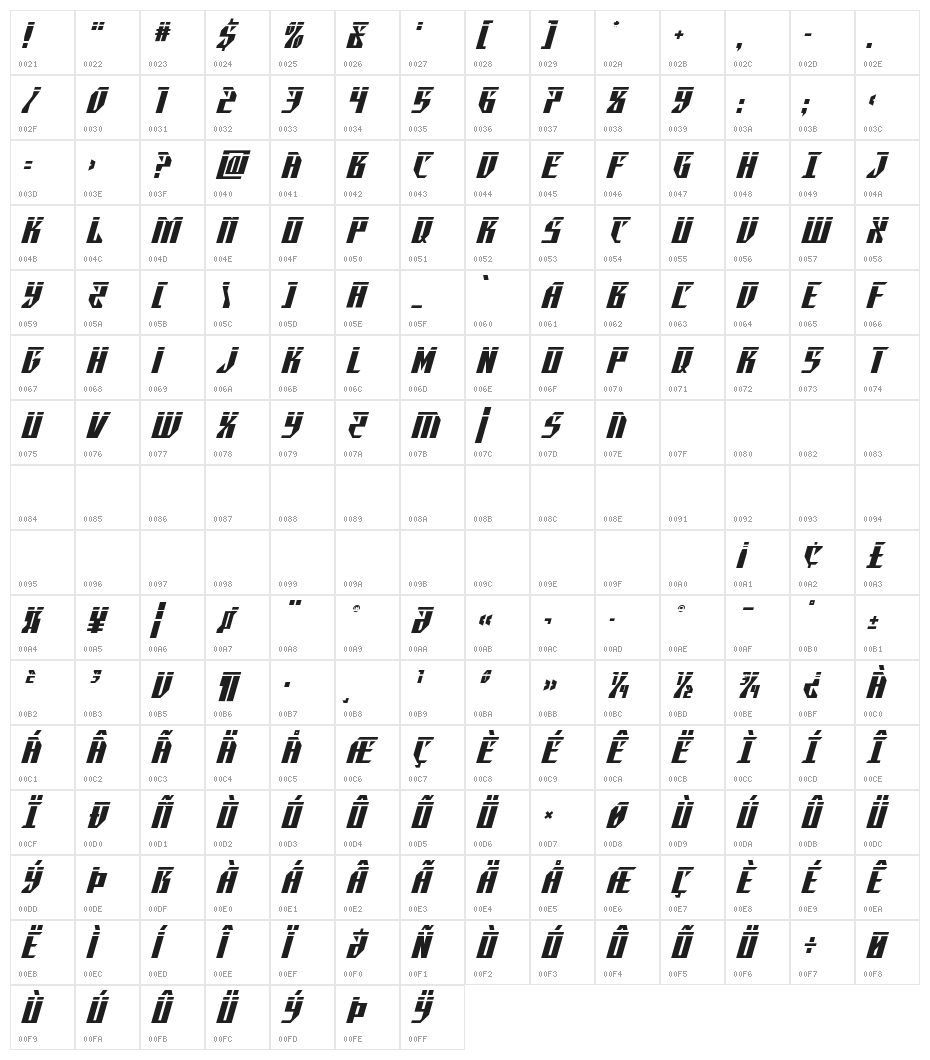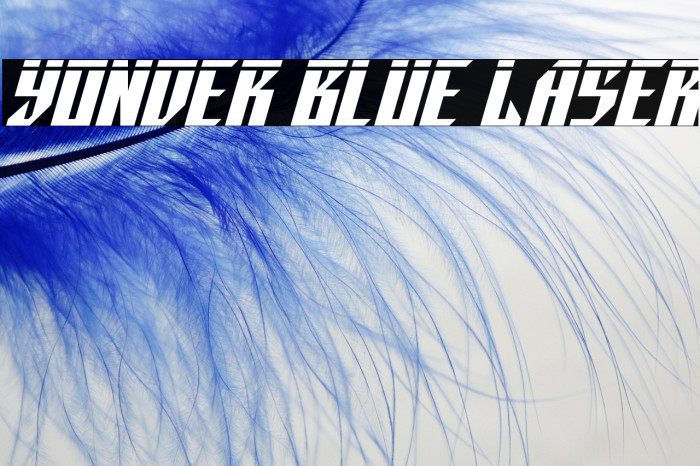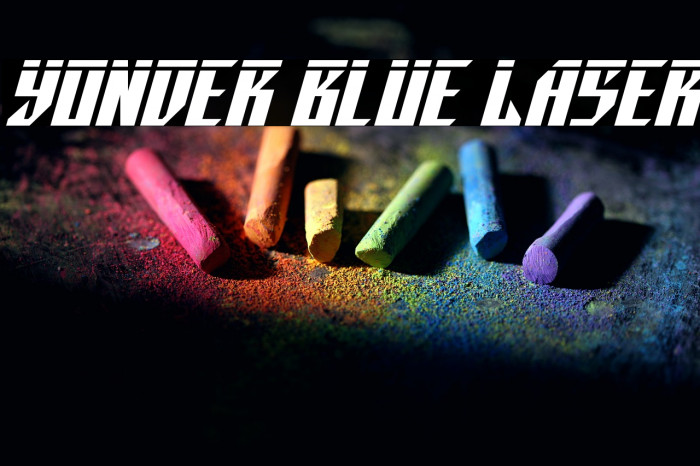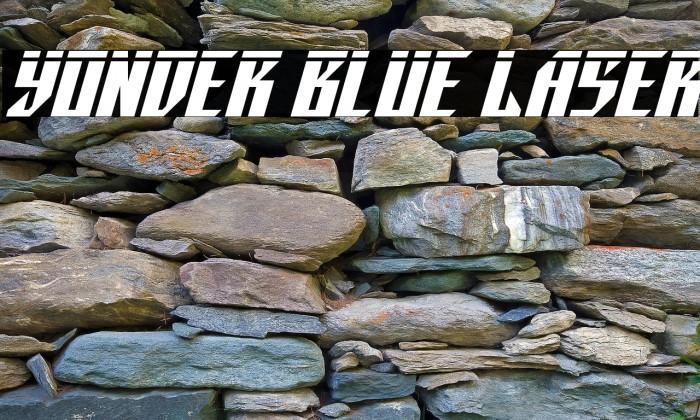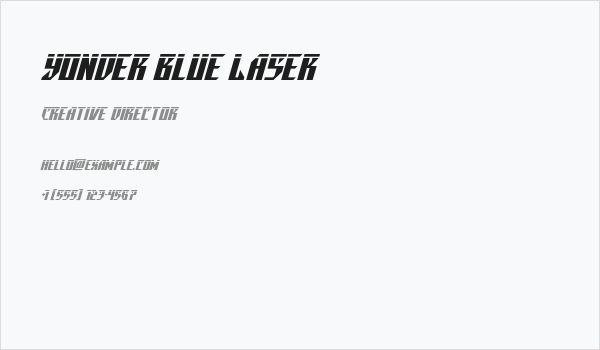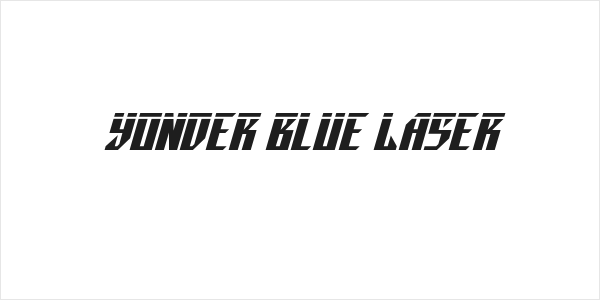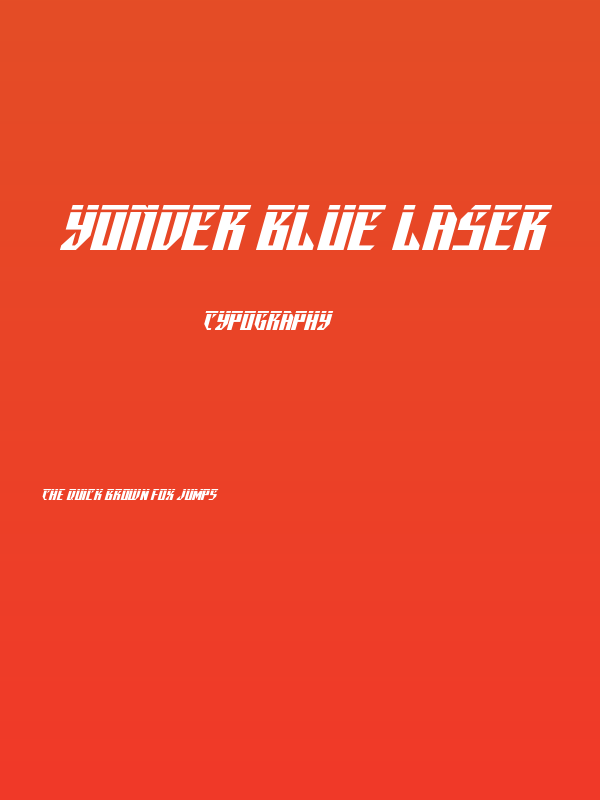
Yonder Blue Laser Font
Yonder Blue Laser Description
This font features a bold, angular design with a futuristic and dynamic appearance. The characters are sharply cut with a distinct slant, giving them a sense of motion and energy. The uppercase and lowercase letters maintain a consistent style, with exaggerated angles and a geometric structure. Numbers and special characters follow the same design principles, ensuring uniformity across all glyphs. The font's boldness and unique style make it stand out, ideal for projects that require a modern and edgy look.
| Proposed Projects | Ideal for sci-fi themed designs, video game titles, tech branding, and dynamic posters. |